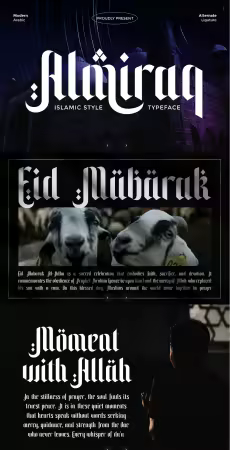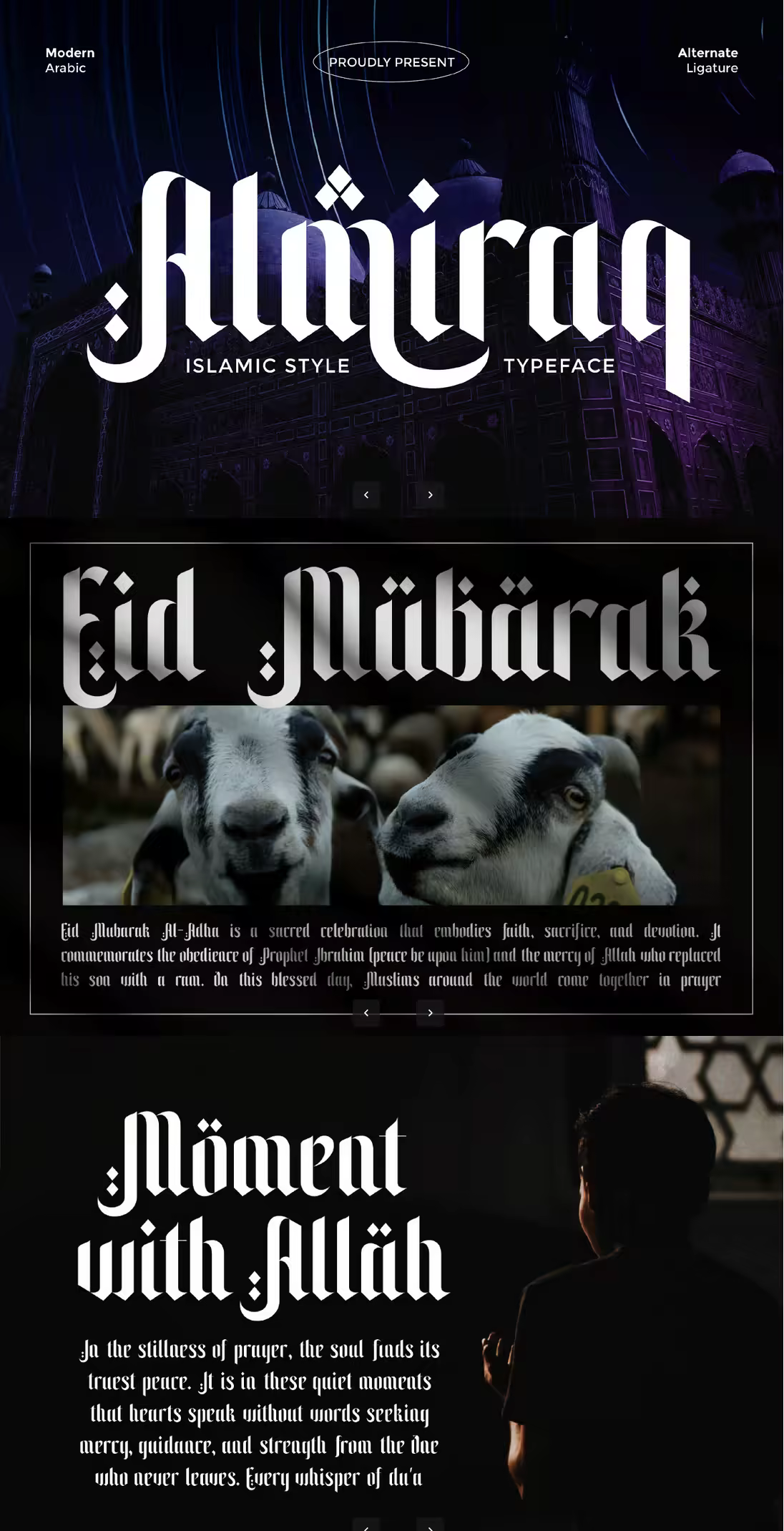
Introducing Modern Display Almiraq Font — a beautifully crafted typeface that blends contemporary minimalism with elegant character. Designed for today’s creative professionals, Almiraq delivers a bold yet refined aesthetic that instantly elevates any visual project.
With clean lines and balanced proportions, Almiraq stands out as the perfect choice for modern branding, editorial design, packaging, advertising, web interfaces, logo creation, posters, headlines, and premium visual identities. Its versatile style makes it suitable for both display uses and high-impact typography needs.
Features
Multilingual
Uppercase alphabet A-Z
Lowercase alphabet a-z
Alternate Ligature
Numbers 0-9
Some punctuation